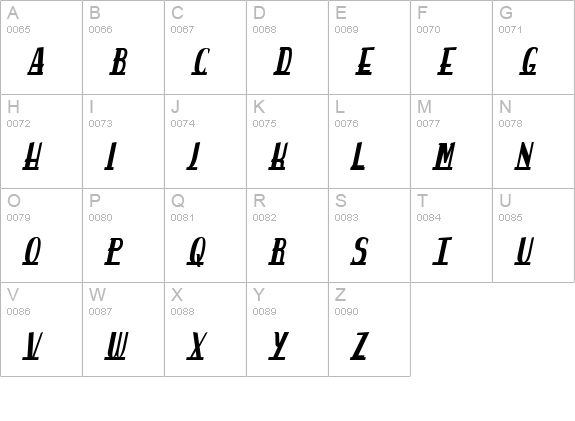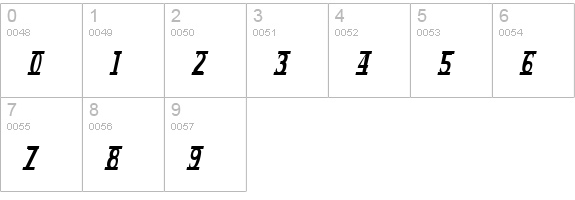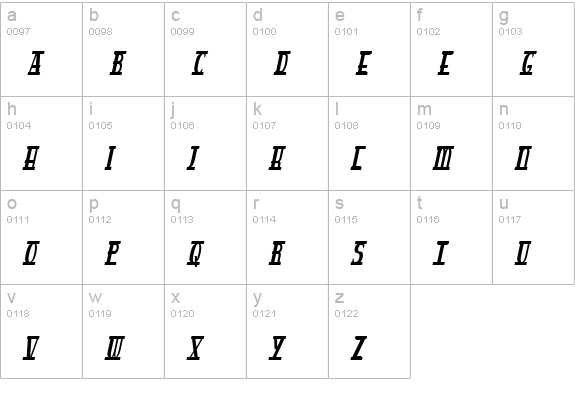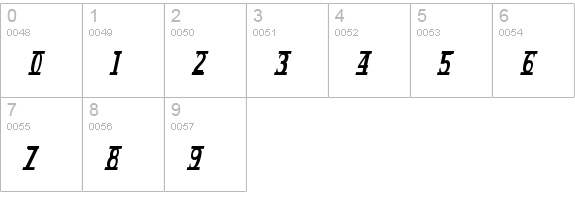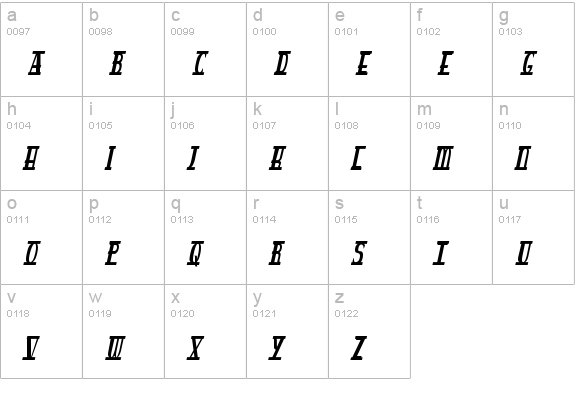
spankys bungalow italico Font Details
Spankys Bungalow Italico Font is a stunning and versatile typeface that exudes elegance and sophistication. With its unique blend of curvaceous letterforms and delicate serifs, this font is perfect for adding a touch of class to any design project. The beauty of Spankys Bungalow Italico Font lies not only in its aesthetic appeal but also in its versatility. Whether you're designing a logo, creating a poster, or crafting a wedding invitation, this font can effortlessly elevate your work to new heights. One of the standout features of Spankys Bungalow Italico Font is its exceptional readability. Each letter is meticulously designed to ensure legibility, making it ideal for both small and large text sizes. Its graceful curves and refined serifs lend a sense of professionalism and refinement to any text. But what truly sets Spankys Bungalow Italico Font apart is that it is available for free download at FontsMarket.com. Yes, you read that right - this exceptional font is freely accessible to anyone who wishes to add a touch of elegance to their designs. Downloading Spankys Bungalow Italico Font from FontsMarket.com is a breeze. Simply visit the website, search for the font, and with just a few clicks, you can have this remarkable typeface in your design arsenal. Whether you're a professional designer or an aspiring creative, this free font is a must-have addition to your collection. So why wait? Experience the elegance and versatility of Spankys Bungalow Italico Font today. Download it for free at FontsMarket.com and unlock a world of design possibilities. Let your creativity soar with this exquisite font that is sure to captivate and inspire.